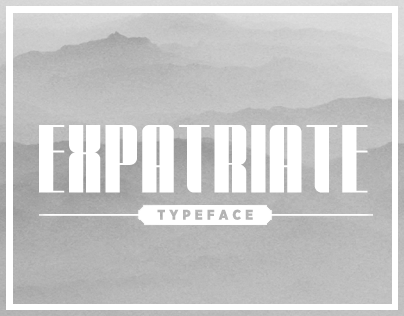
EXPATRIATE TYPEFACE (PROMO) Expatriate is a typeface inspired by term itself with reference from the movie ‘The Expatriate’ (2012) and also a lot of European expatriate in my hometown, Bandung. When the font is ready, I decided to collaborate with my favourite photographer, Amelia Samulo to presented the promo of the typeface with her landscape photo. Represented from the Latin terms ex (’out of’) and patria (’fatherland’). The font is PROMO (only uppercase, number, symbols) To get the complete font (plus lowercase) or use it for commercial as you see in my portfolio page. PLEASE Send a message to ezzazebra@gmail.com or ezza_menggambar@yahoo.co.id and you can use Worldremit.com to donate me & appreciate my work. To see the complete project and personal portfolio, please visit https://www.behance.net/gallery/EXPATRIATE-Typeface/14032041 |